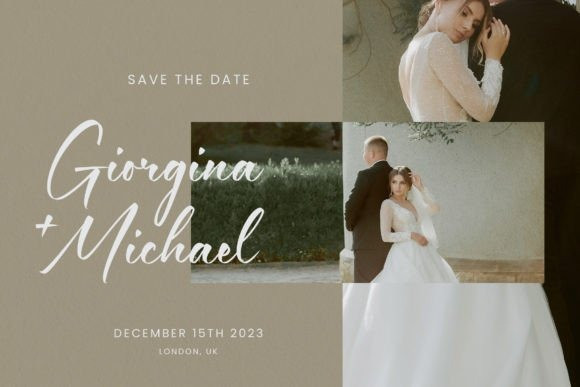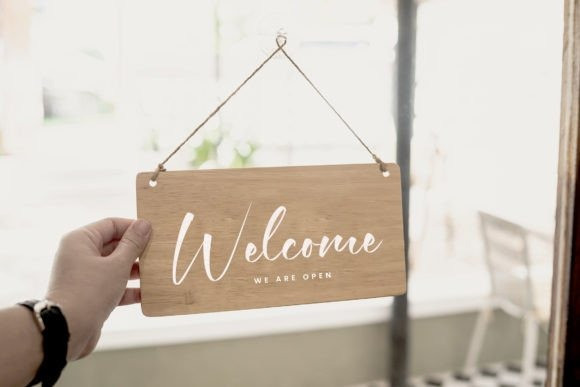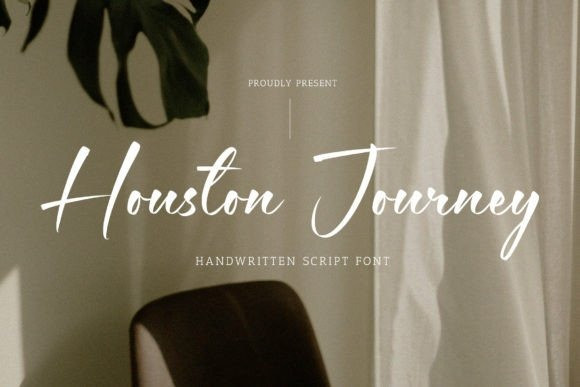
Houston Journey Font
Houston Journey Font is a handwritten script font, perfect for product packaging, branding project, megazine, social media, wedding, or just used to express words above the background.